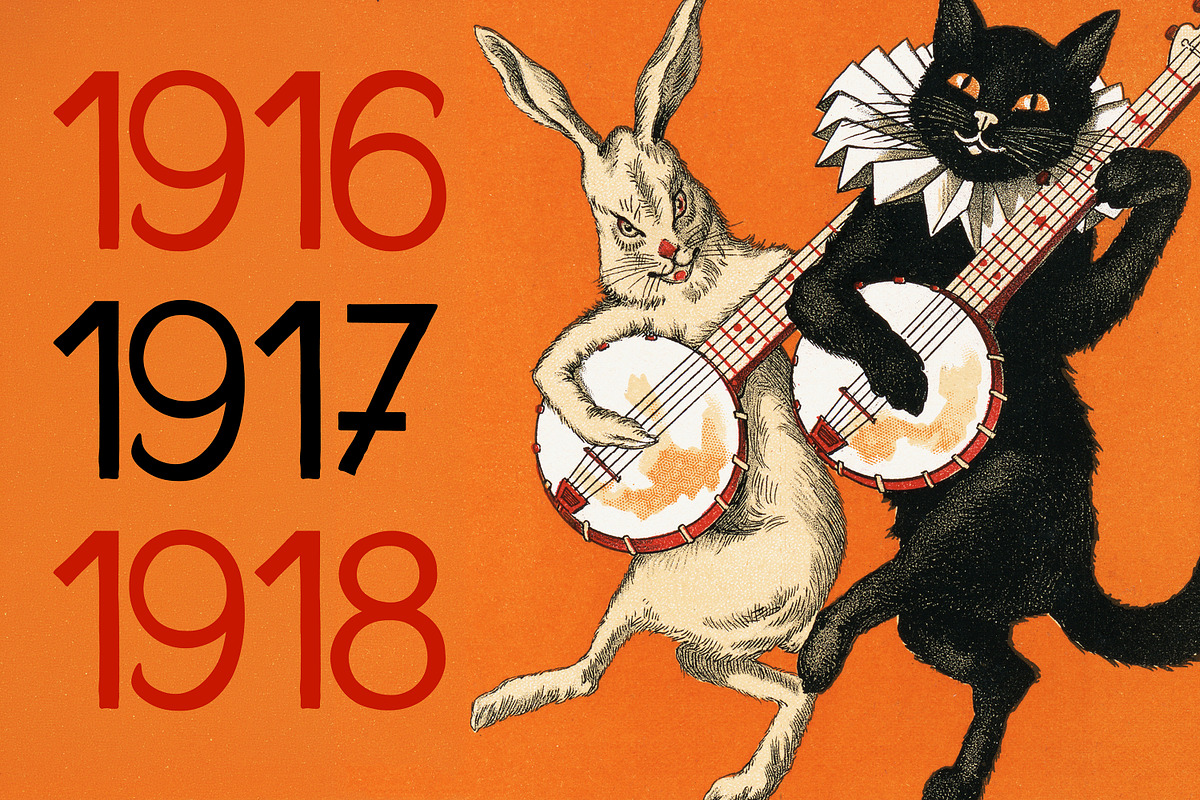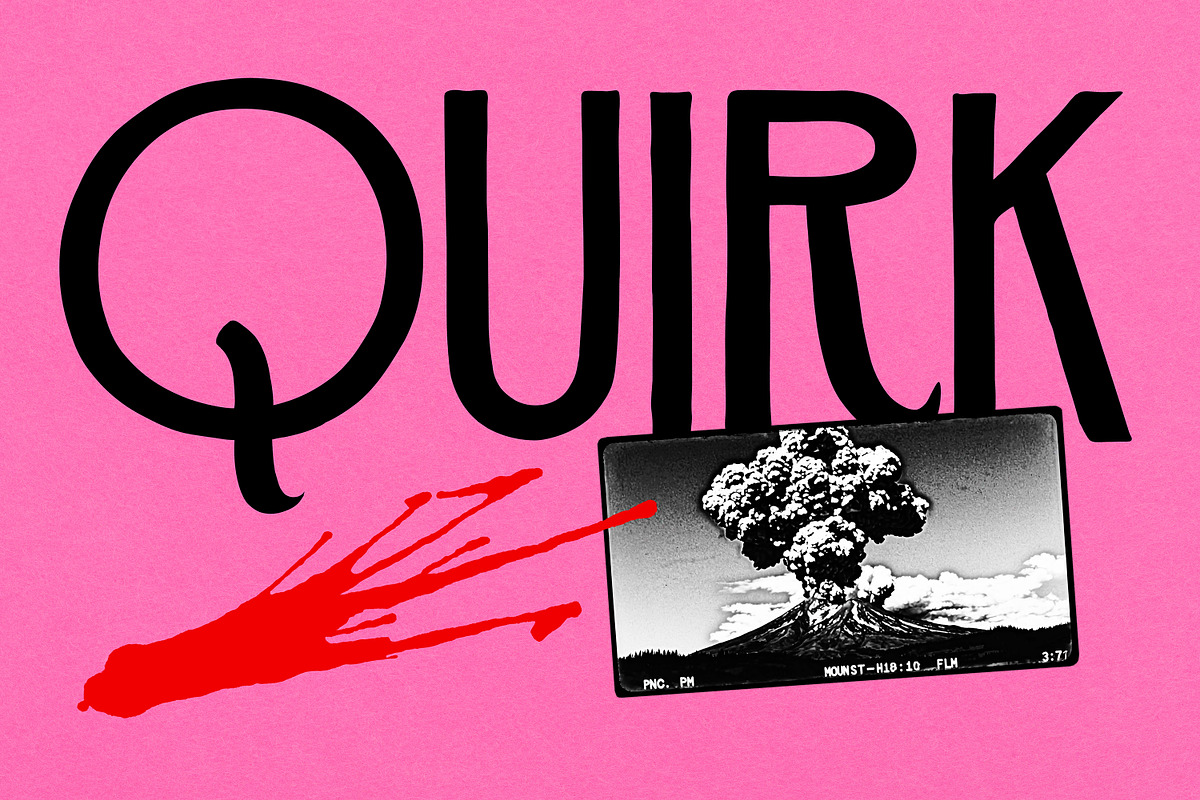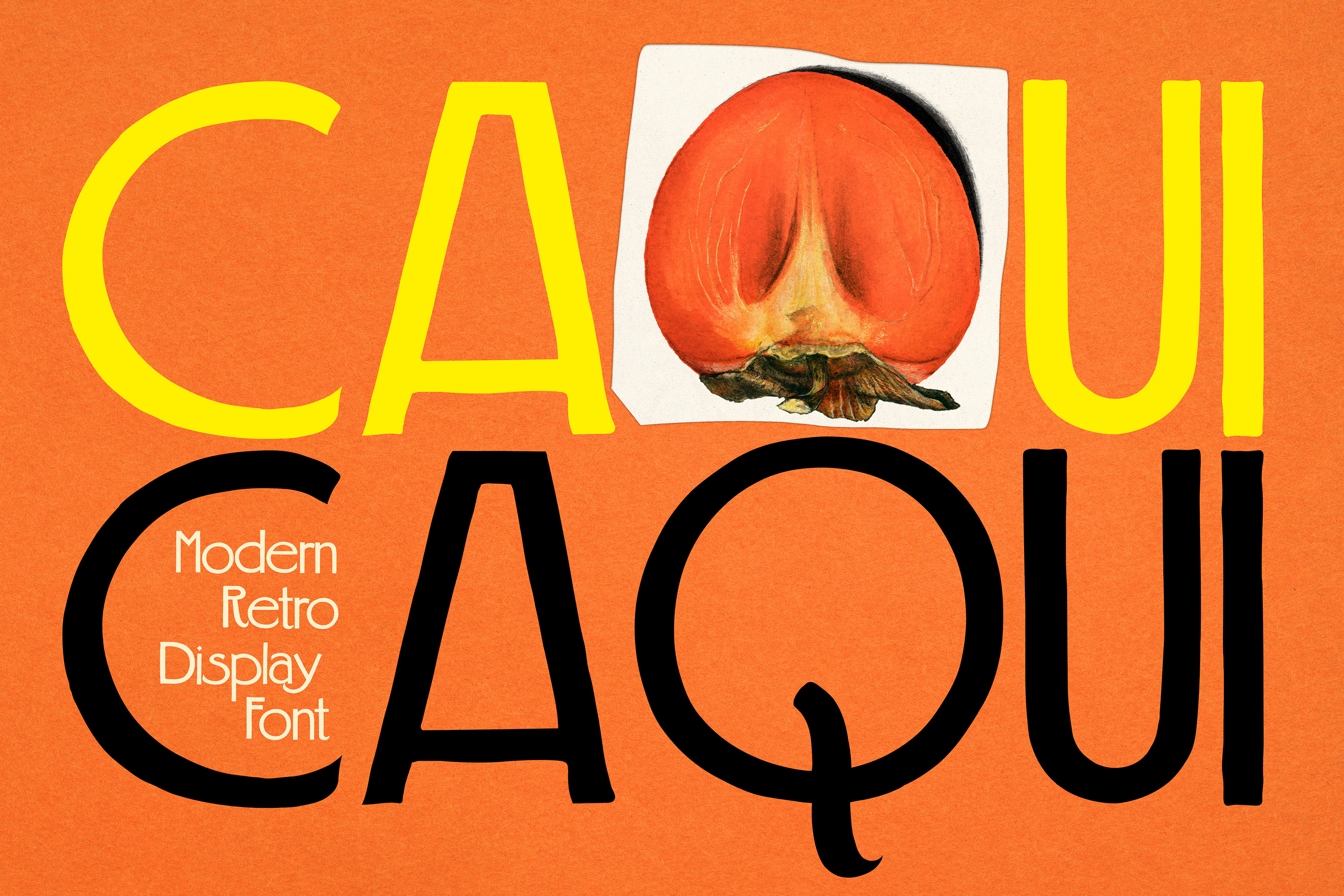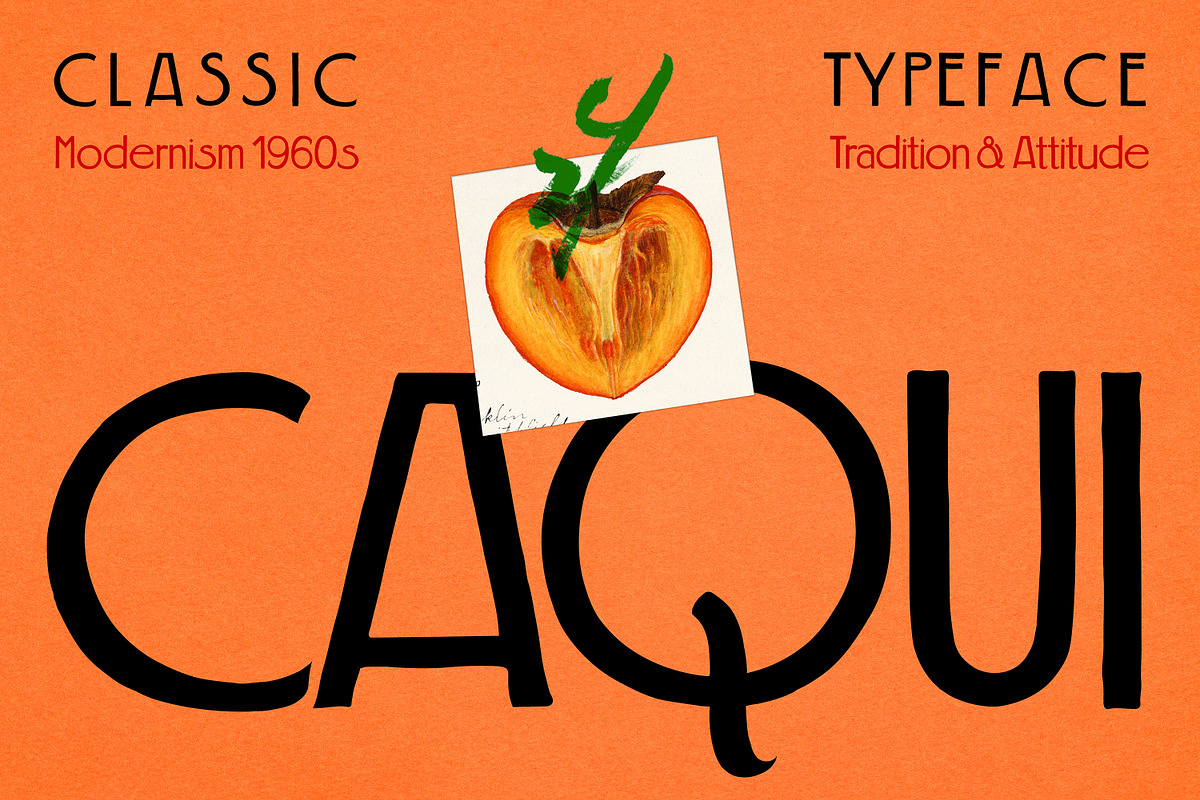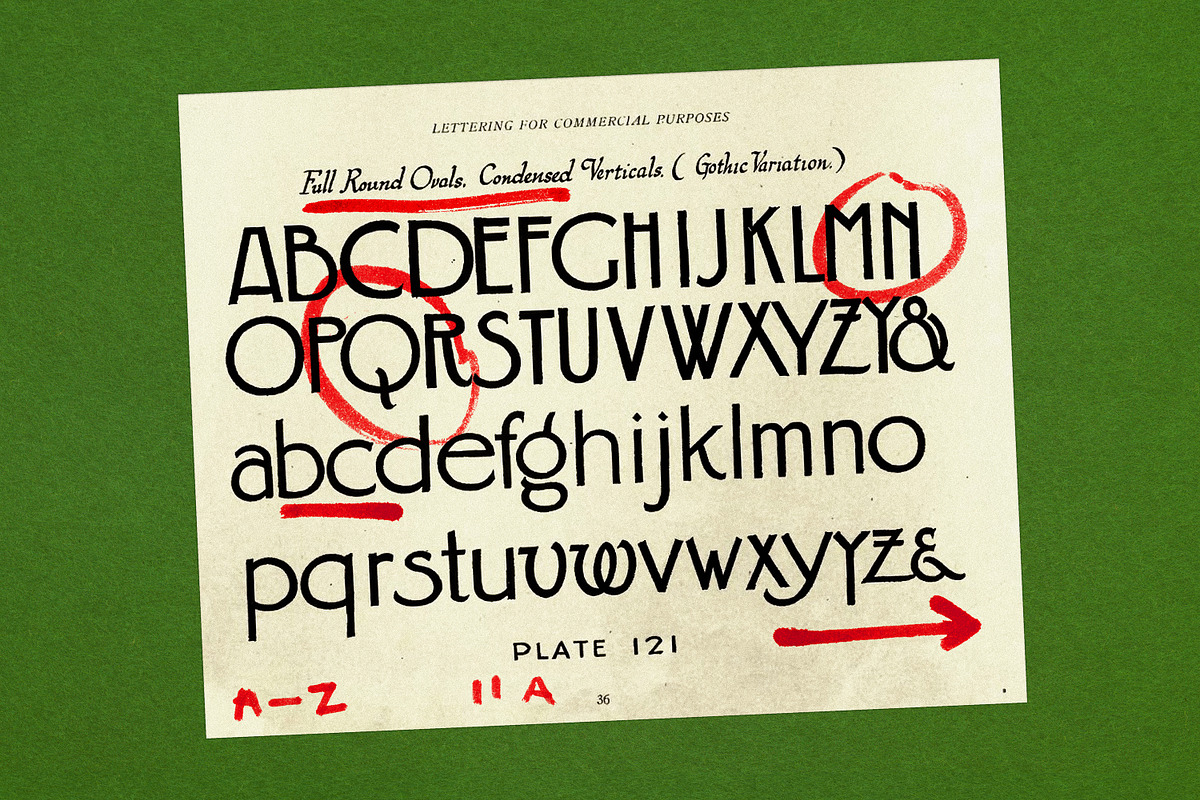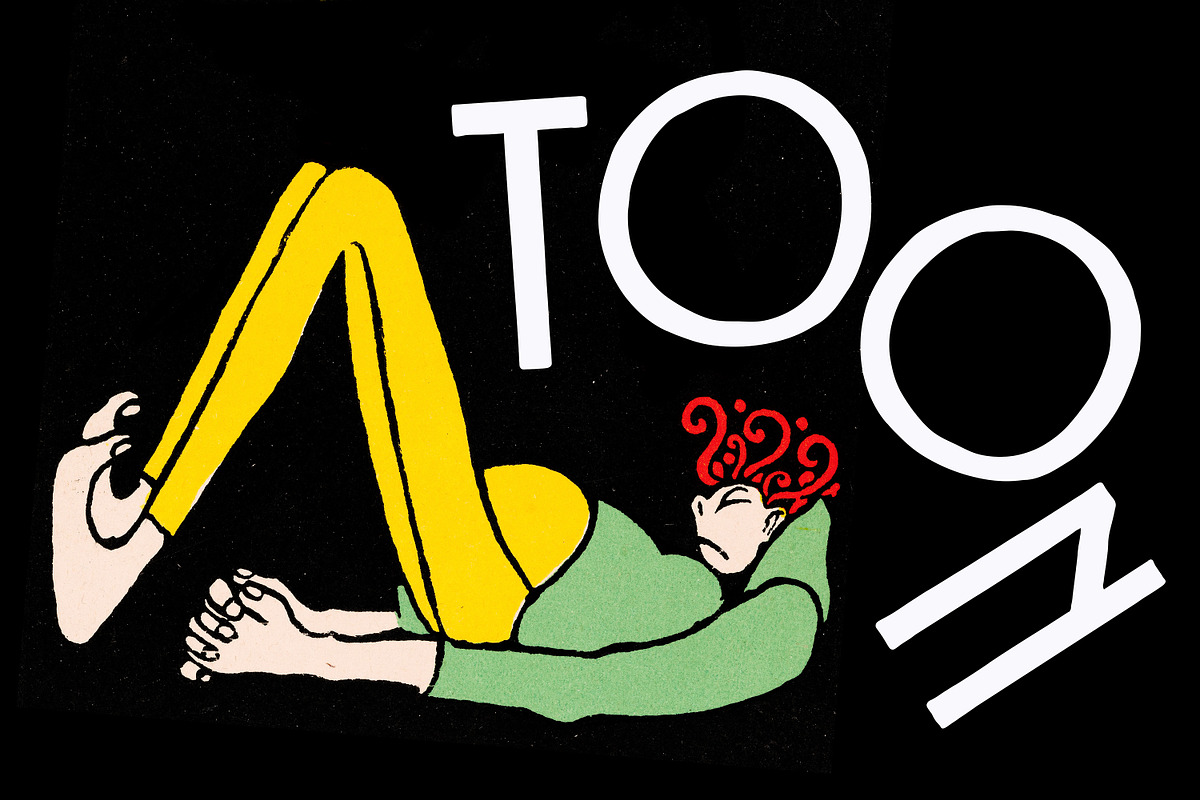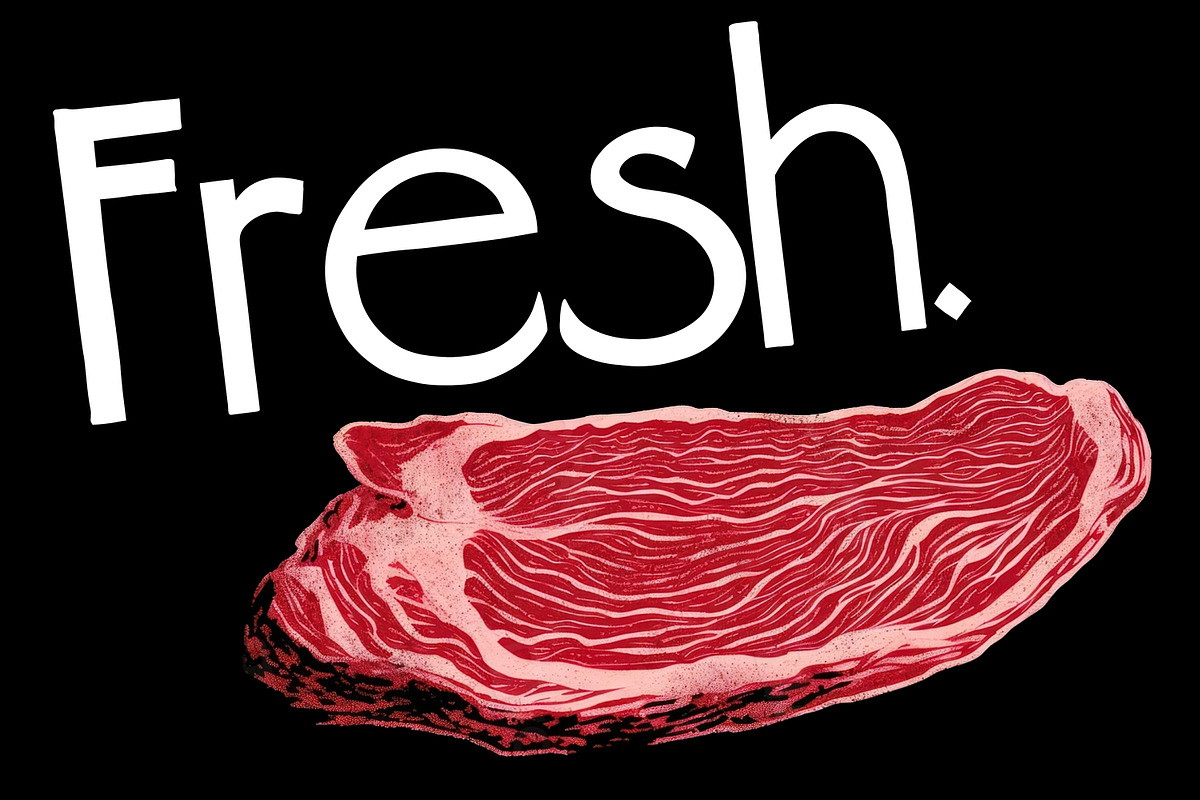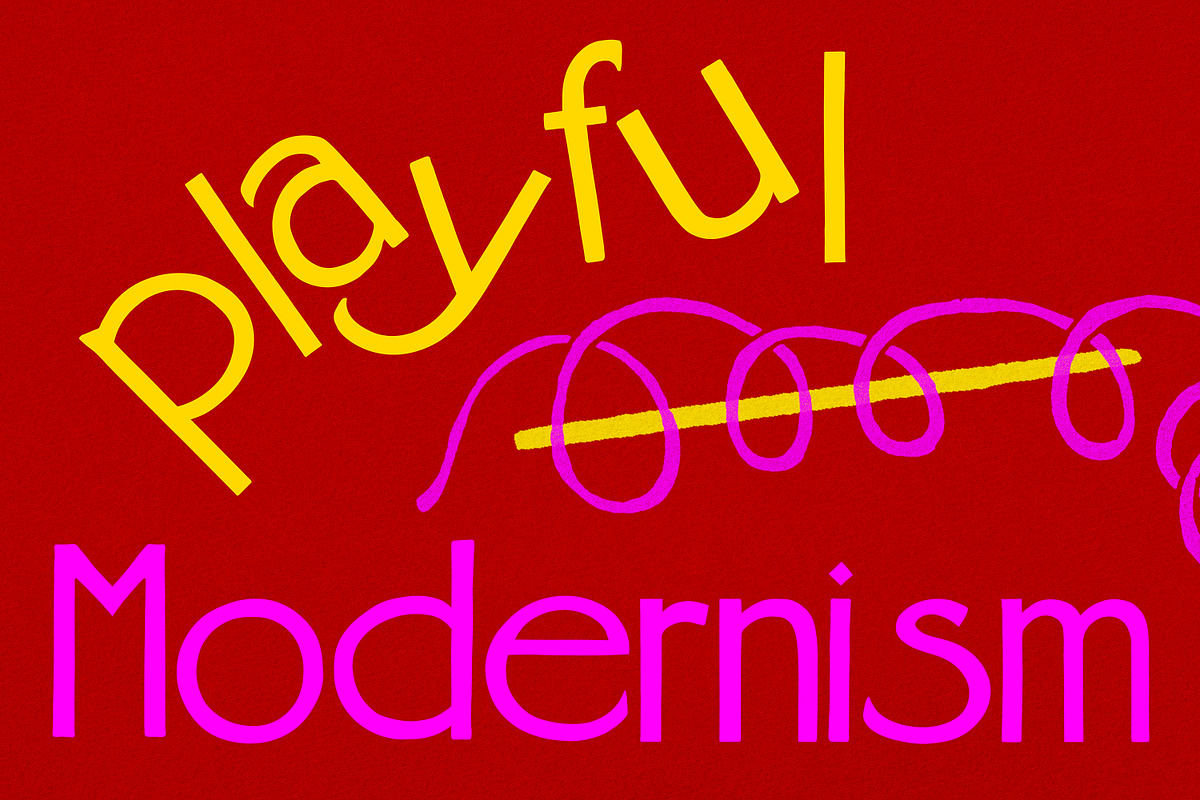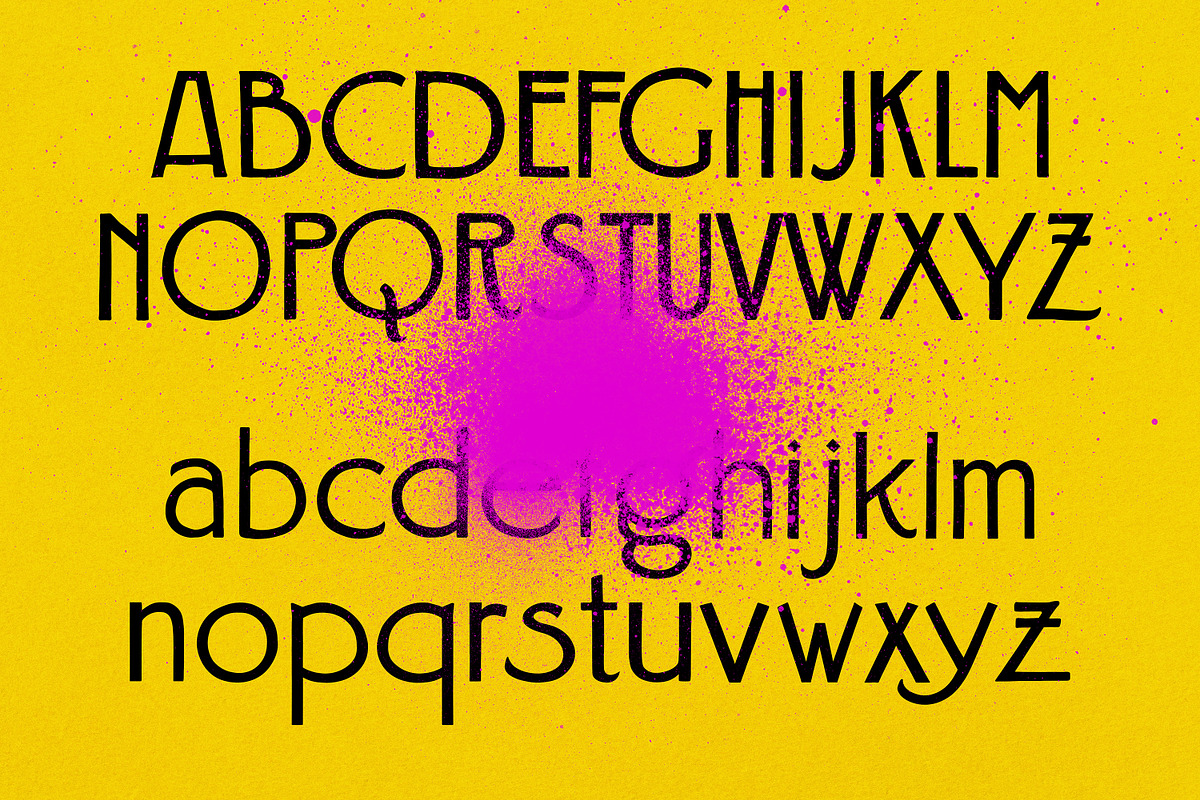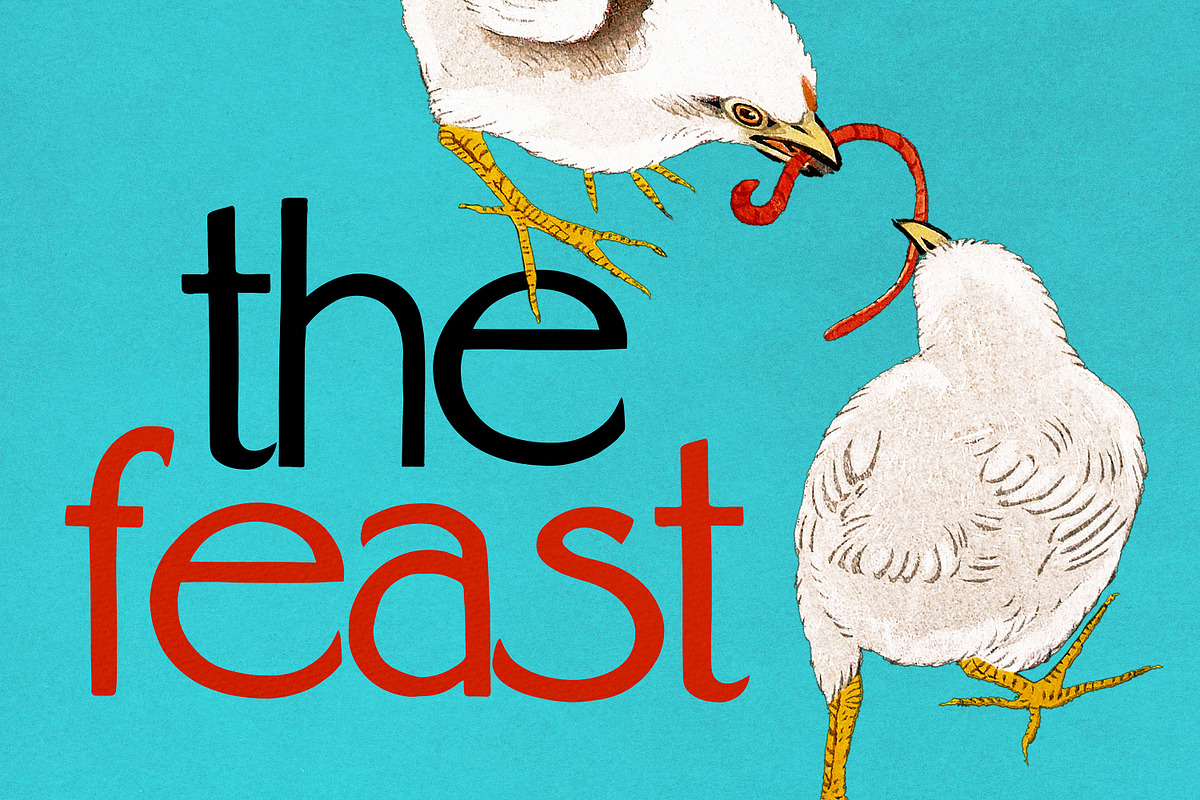
CAQUI — Modern Retro Display Font
Caqui is a modernist display font inspired by the bold geometry of early 20th-century commercial lettering. Developed through a meticulous digital revival process, this typeface transforms a historical public-domain alphabet into a contemporary visual tool. Marked by structural curves and deliberate irregularities, Caqui strikes an imposing balance between timeless tradition and sharp graphic attitude. Its distinctive weight and high-impact personality make it highly recommended for sophisticated branding projects, books, high-end editorial layouts, artistic packaging, and prominent logo designs.
This digital typeface is an original derivative work designed, revived, and produced in Rio de Janeiro, Brazil, by Caio Maia. It constitutes a unique aesthetic transformation, expansion, and digital reconstruction of William Hugh Gordon's 1918 alphabet (originally structured around "Full Round Ovals and Condensed Verticals" for his landmark manual Lettering for Commercial Purposes). All rights to this specific digital iteration, outline data, and font software are strictly reserved under international copyright laws and officially registered via Avctoris. Unauthorized distribution, modification, or piracy is strictly prohibited. Your purchase includes a legal commercial or personal usage license certificate.